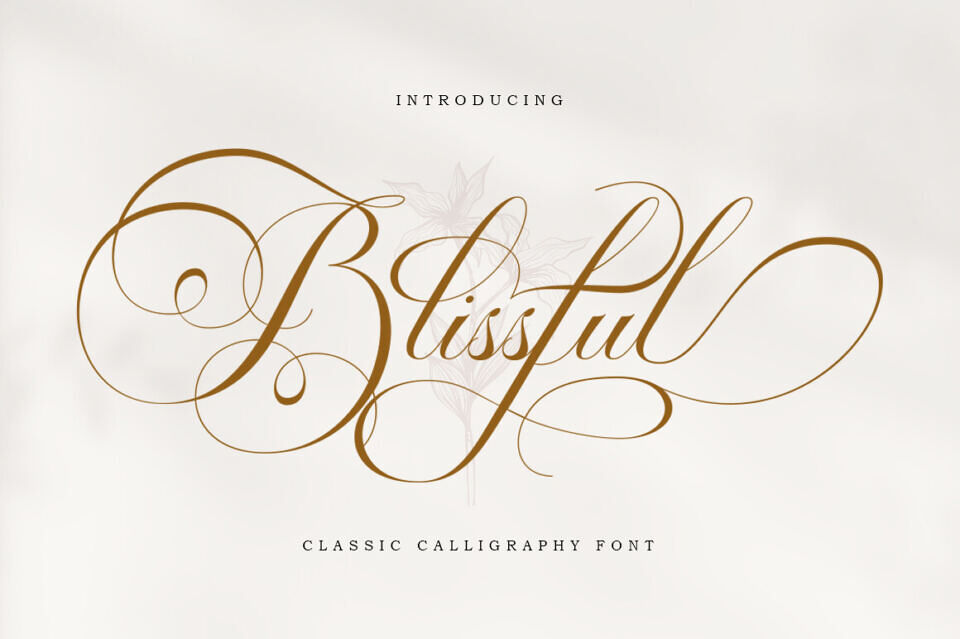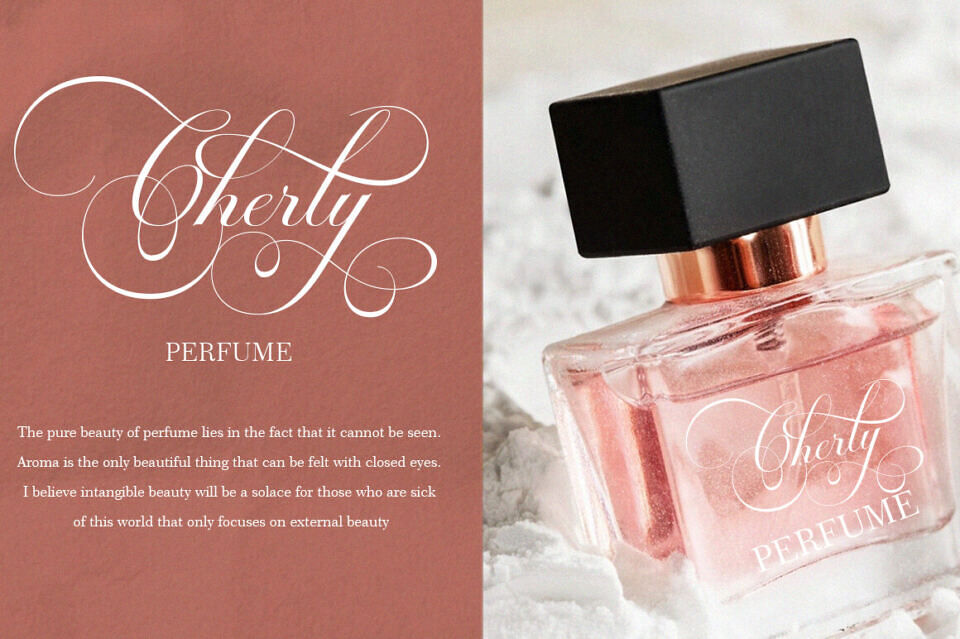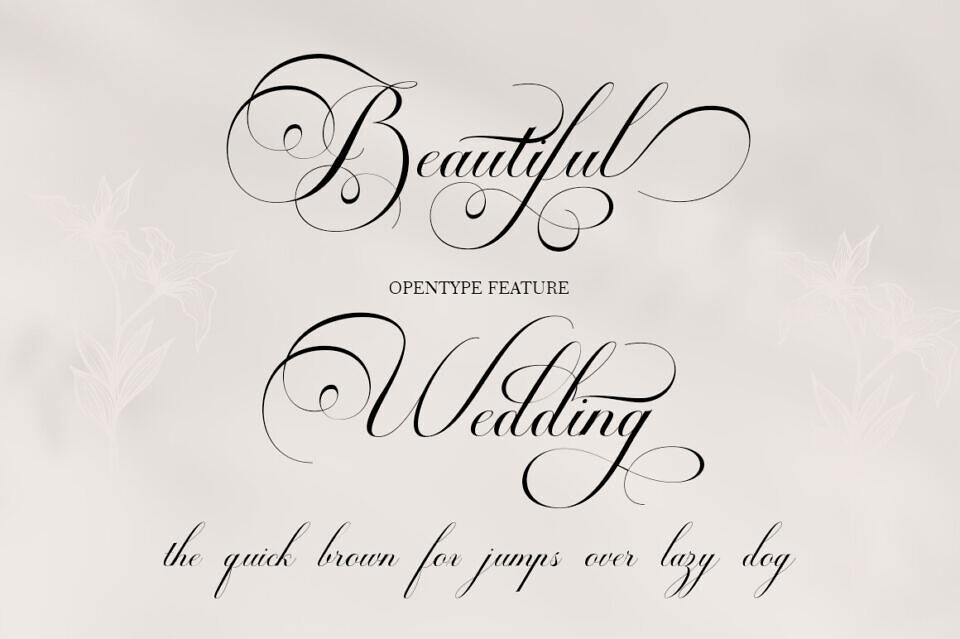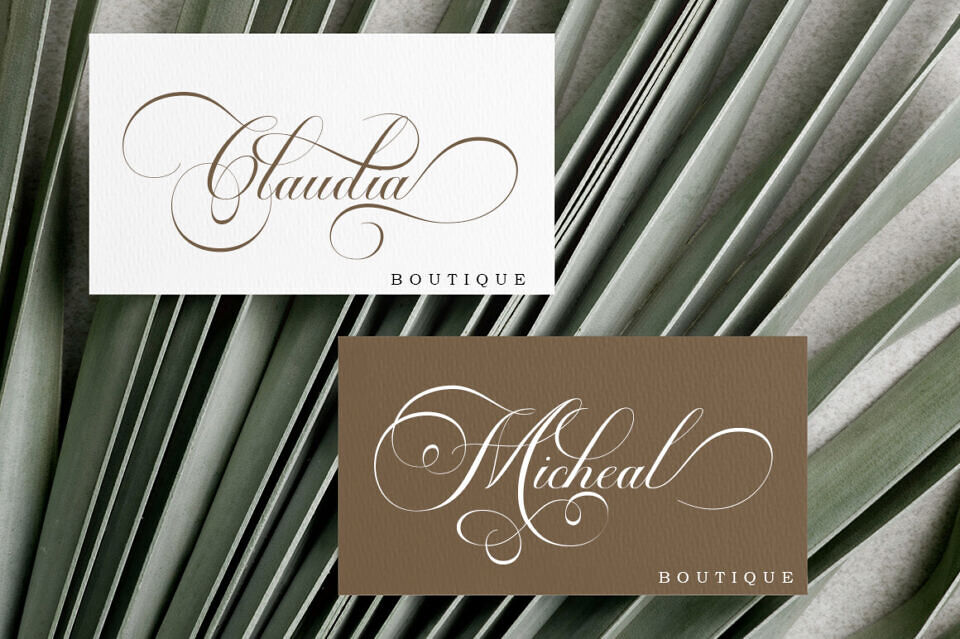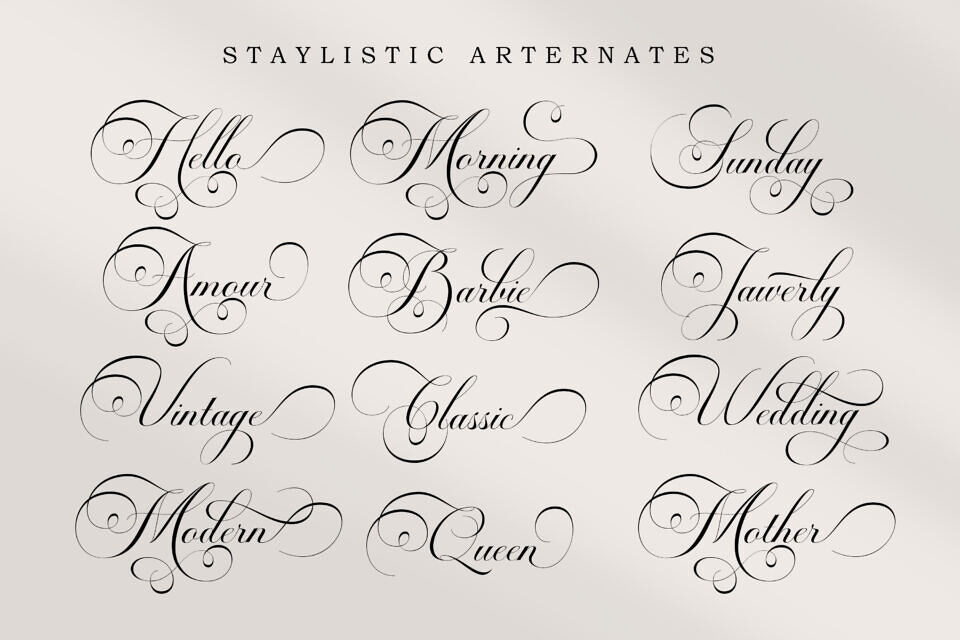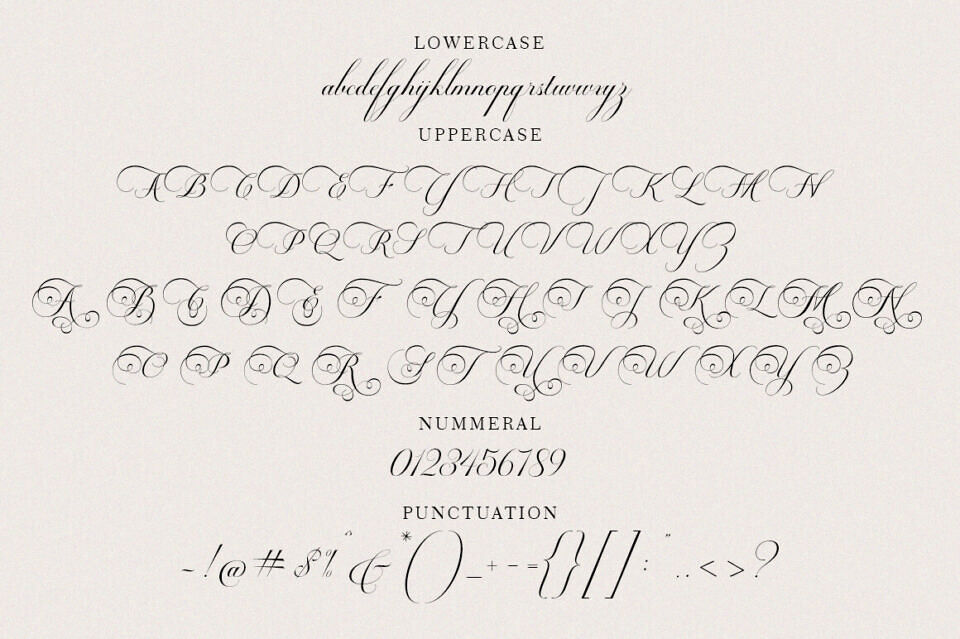
Blissful Script Font
Blissful Classic is a calligraphy font that comes with exquisite changing characters, a kind of classic decorative copper script with a modern touch, designed with high details to bring out the elegance of the style.
Blissful Classic Calligraphy Font is attractive because the typeface is smooth, clean, feminine, sensual, glamorous, simple, and very easy to read, because of the many luxurious letter connections.
The classic style is very suitable to be applied in various formal forms such as invitations, labels, restaurant menus, logos, fashion, makeup, stationery, novels, magazines, books, greeting/wedding cards, packaging, labels, or all kinds of advertising purposes.